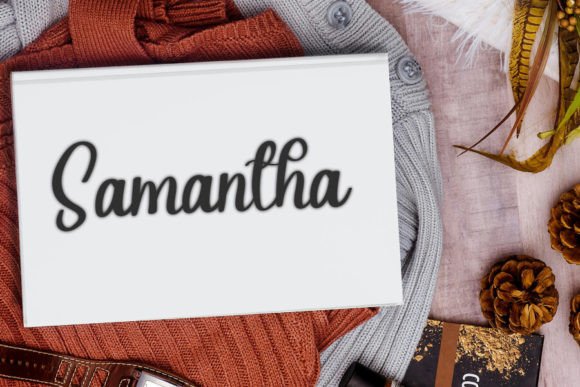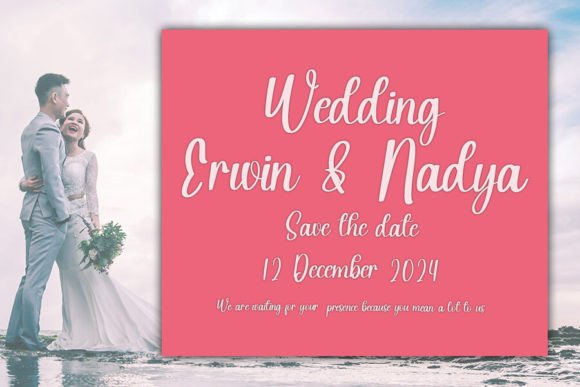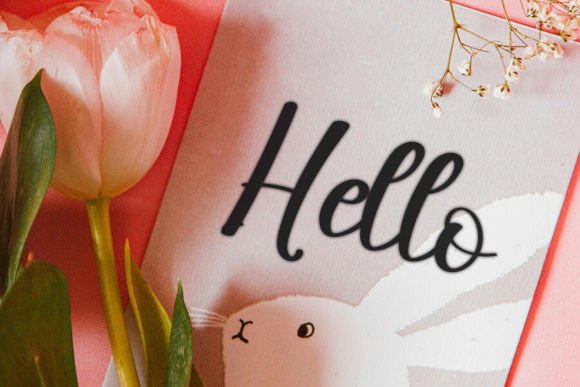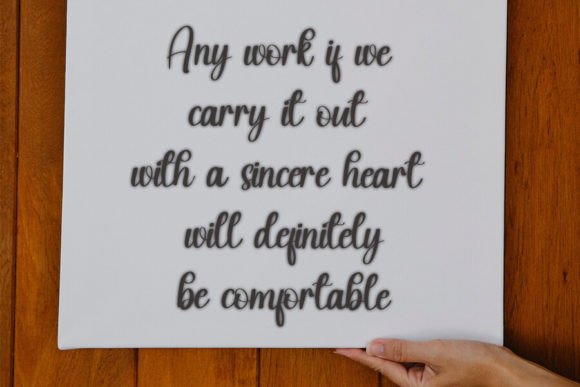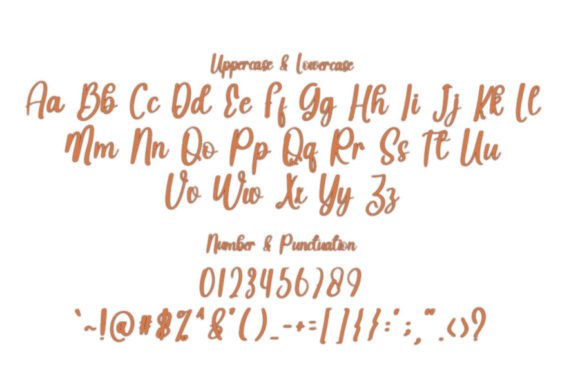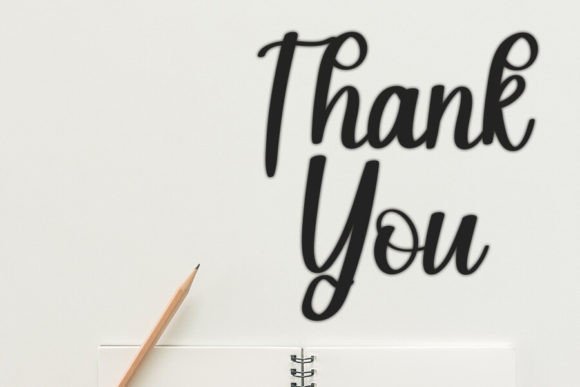
Introduction to Romantic Mandala Font
Romantic is a sweet and friendly handwritten font.
Key Features of Romantic Mandala Font
Why Choose Romantic Mandala Font?
Romantic Mandala Font offers exceptional quality and versatility, making it a valuable addition to your design toolkit. Whether you’re creating for personal projects or commercial use, Romantic Mandala Font delivers professional results.